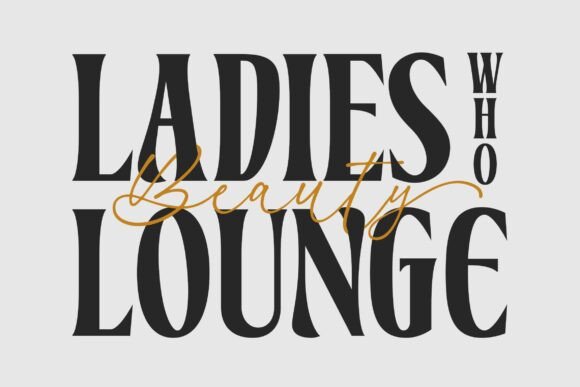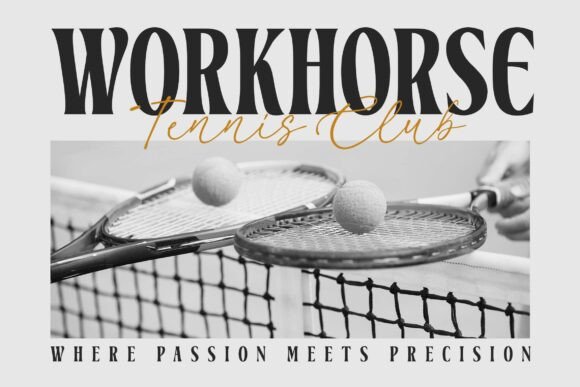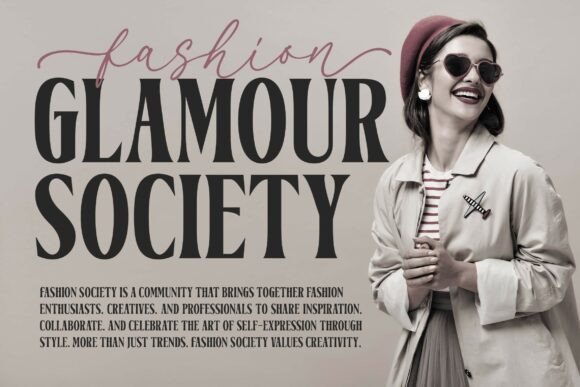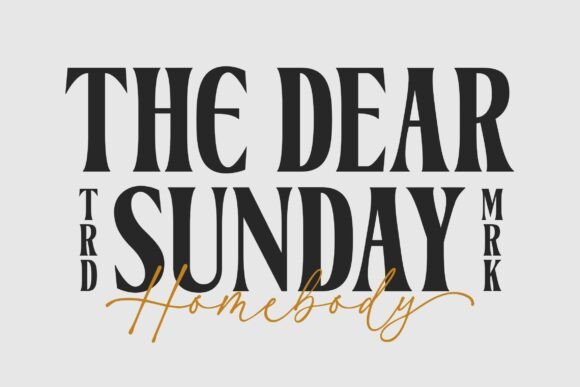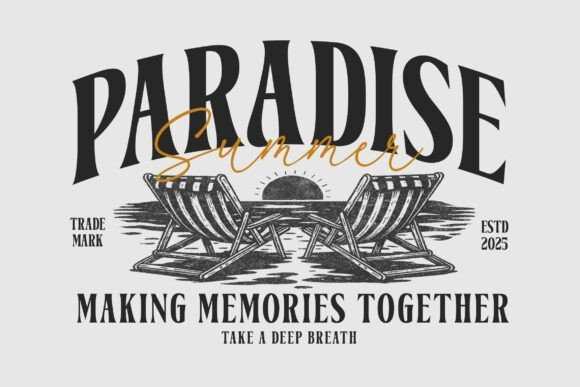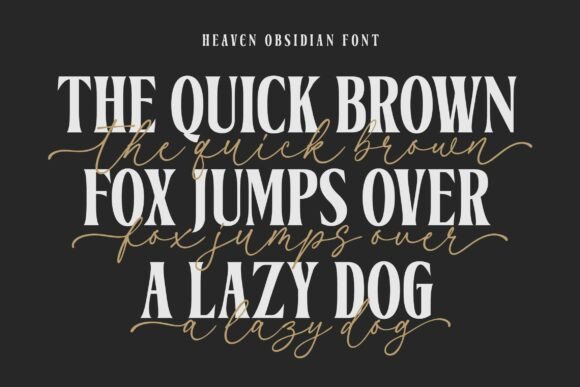
Introducing Heaven Obsidian: The Ultimate Vintage Elegant Serif and Script Font Combination
Hello, awesome people! Are you tired of using the same old fonts for your professional projects? Look no further! We’re excited to introduce Heaven Obsidian, a stunning Vintage Elegant Serif and Script Font Combination that’s perfect for adding a touch of sophistication to your branding, logotypes, watermarks, posters, and more.
A Perfect Blend of Serif and Script Fonts
Heaven Obsidian is a thoughtfully designed font that combines the classic elegance of serif fonts with the fluidity of script fonts. This unique blend makes it an ideal choice for designers and crafters looking to add a vintage touch to their projects. Whether you’re working on a logo, brochure, or packaging design, Heaven Obsidian is sure to impress.
Key Features of Heaven Obsidian Font
• Vintage Elegant Style: Every letter in Heaven Obsidian has been carefully crafted with a vintage elegant style design, perfect for creating sophisticated and timeless branding.
• Full Set of Characters: This font includes a full set of uppercase and lowercase letters, numerals, and punctuation, giving you everything you need to create stunning text-based designs.
• Versatile: Use Heaven Obsidian for logotypes, watermarks, posters, branding, promotions, product packaging, and more – the possibilities are endless!
Why Choose Heaven Obsidian Font?
With so many fonts available, why should you choose Heaven Obsidian? Here are just a few reasons:
• Unique Style: Heaven Obsidian’s vintage elegant style sets it apart from other fonts, giving you a chance to create truly unique and memorable designs.
• High-Quality Design: Every letter has been carefully designed to ensure that your text-based designs look professional and polished.
Inspiration for Your Designs
Still not sure how to use Heaven Obsidian? Take a look at the previews above for some inspiration. Here are a few ideas to get you started:
• Logotypes: Use Heaven Obsidian to create a sophisticated logotype that sets your brand apart.
• Posters: Add a touch of elegance to your posters with Heaven Obsidian’s vintage style.
• Branding: Use Heaven Obsidian to create a cohesive brand identity that exudes professionalism and style.
• Product Packaging: Add a touch of luxury to your product packaging with Heaven Obsidian’s elegant design.
Heaven Obsidian is more than just a font – it’s a design solution that can help you elevate your projects and take your brand to the next level. With its unique vintage elegant style, high-quality design, and versatility, Heaven Obsidian is the perfect choice for designers and crafters looking to create stunning text-based designs.